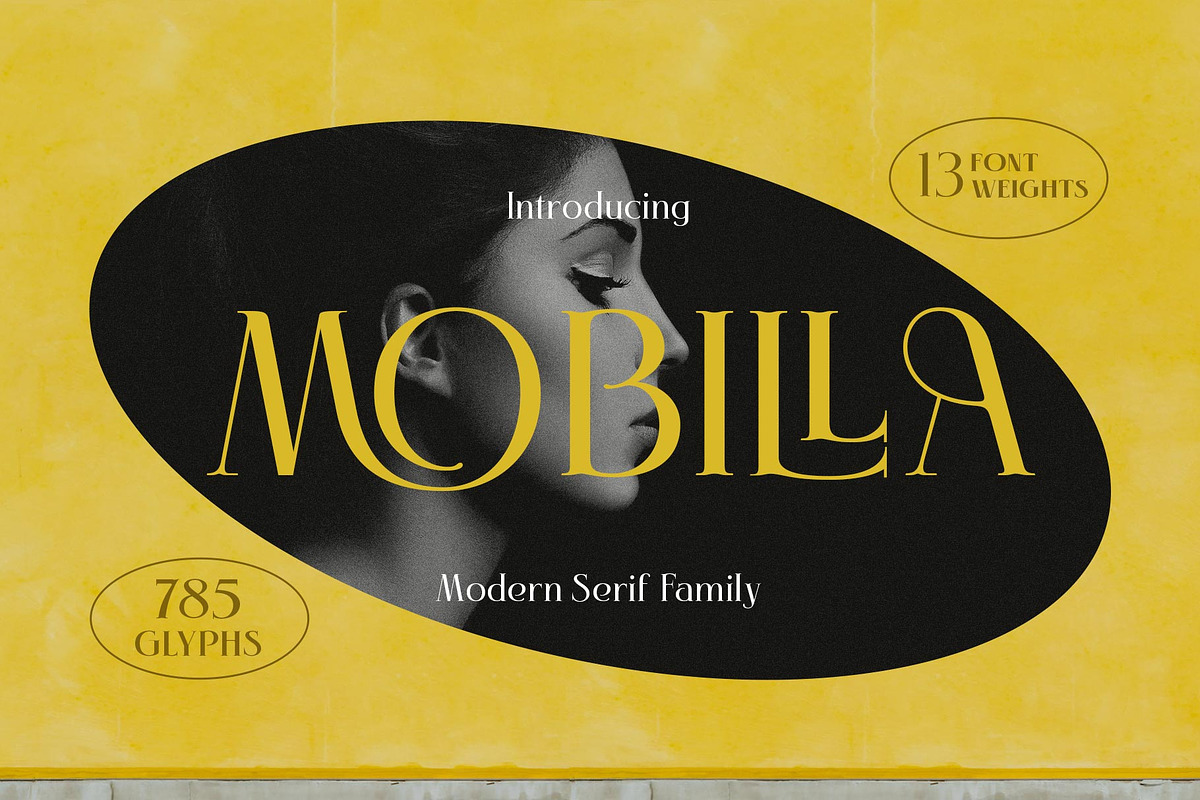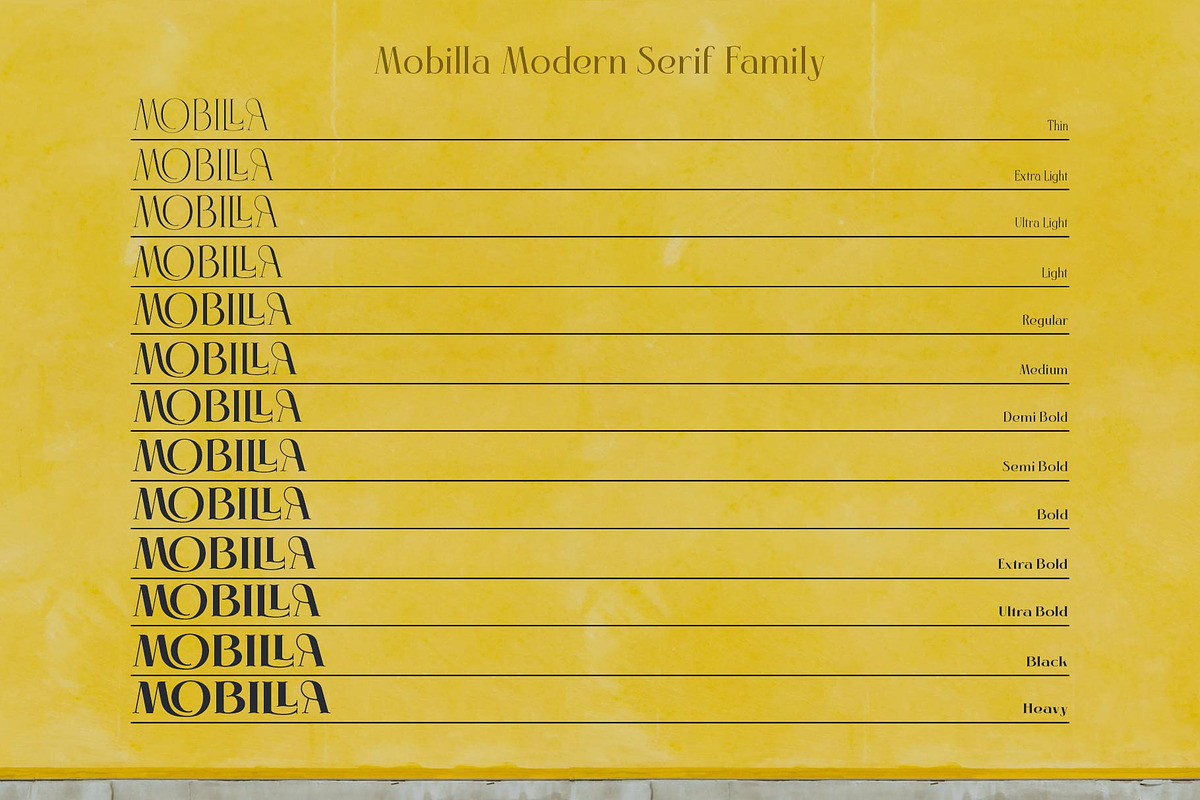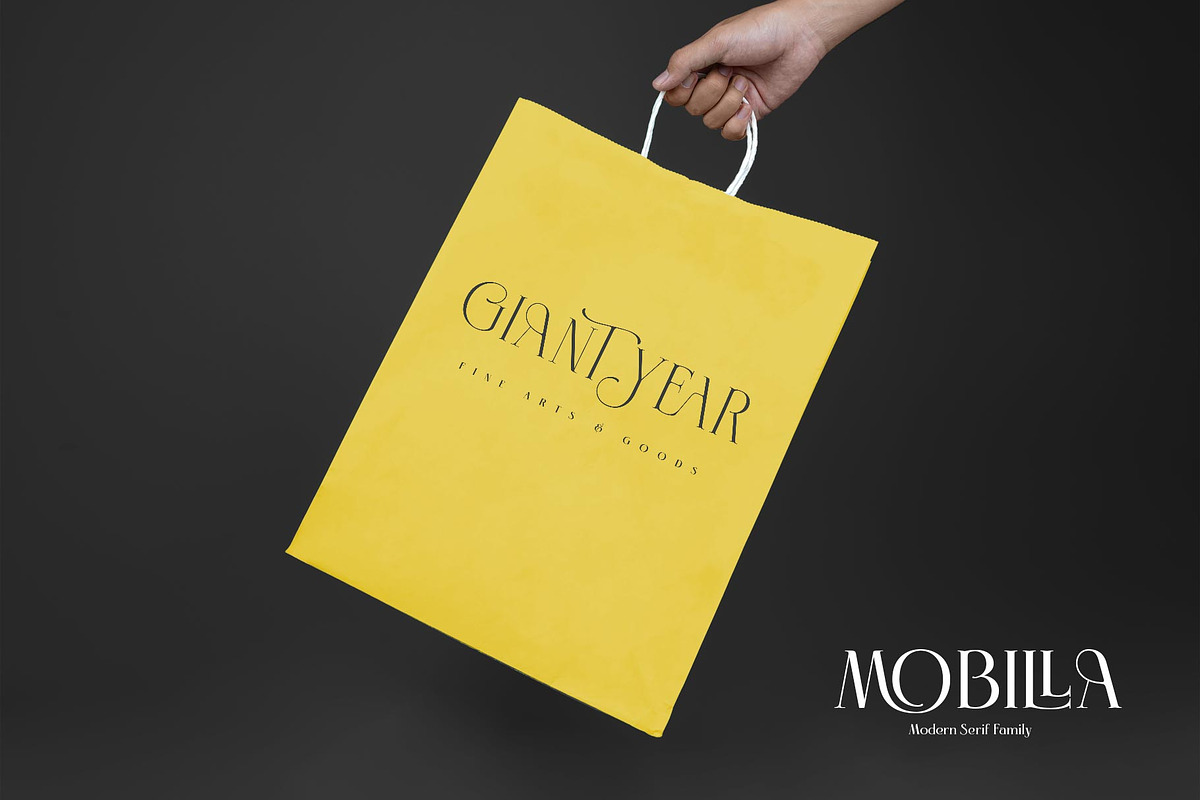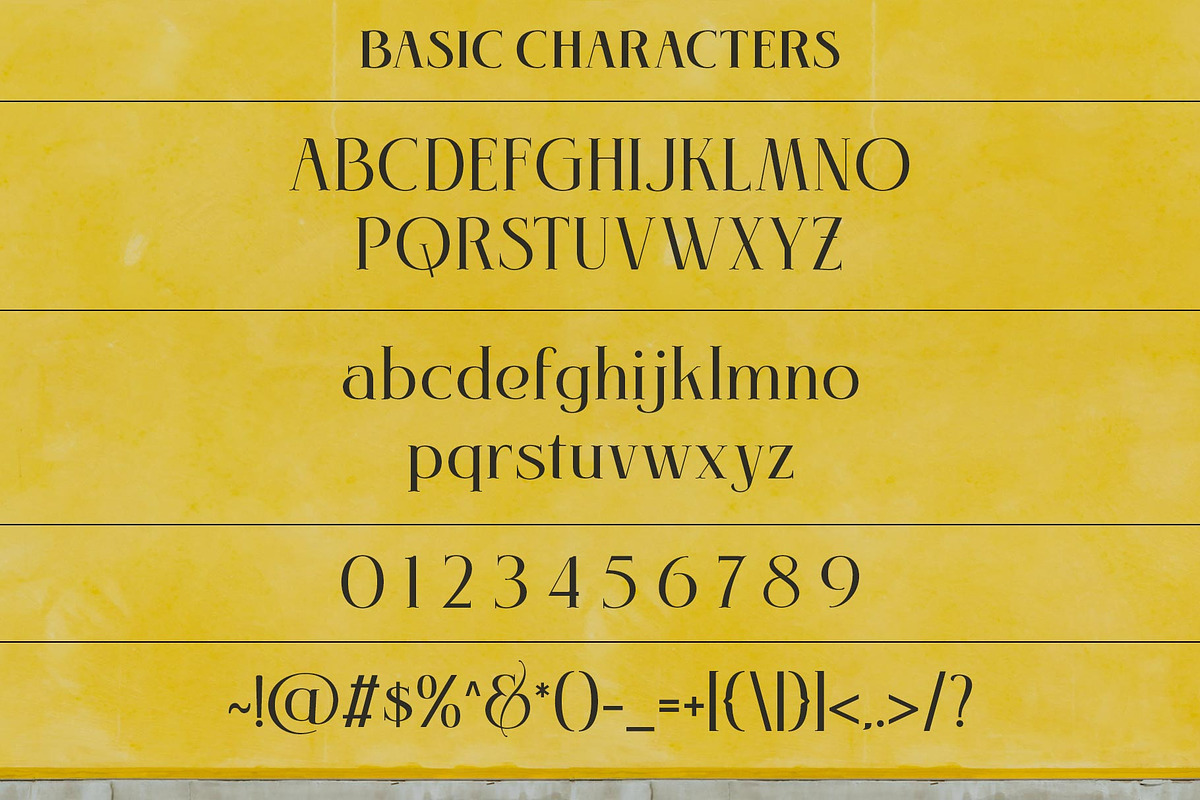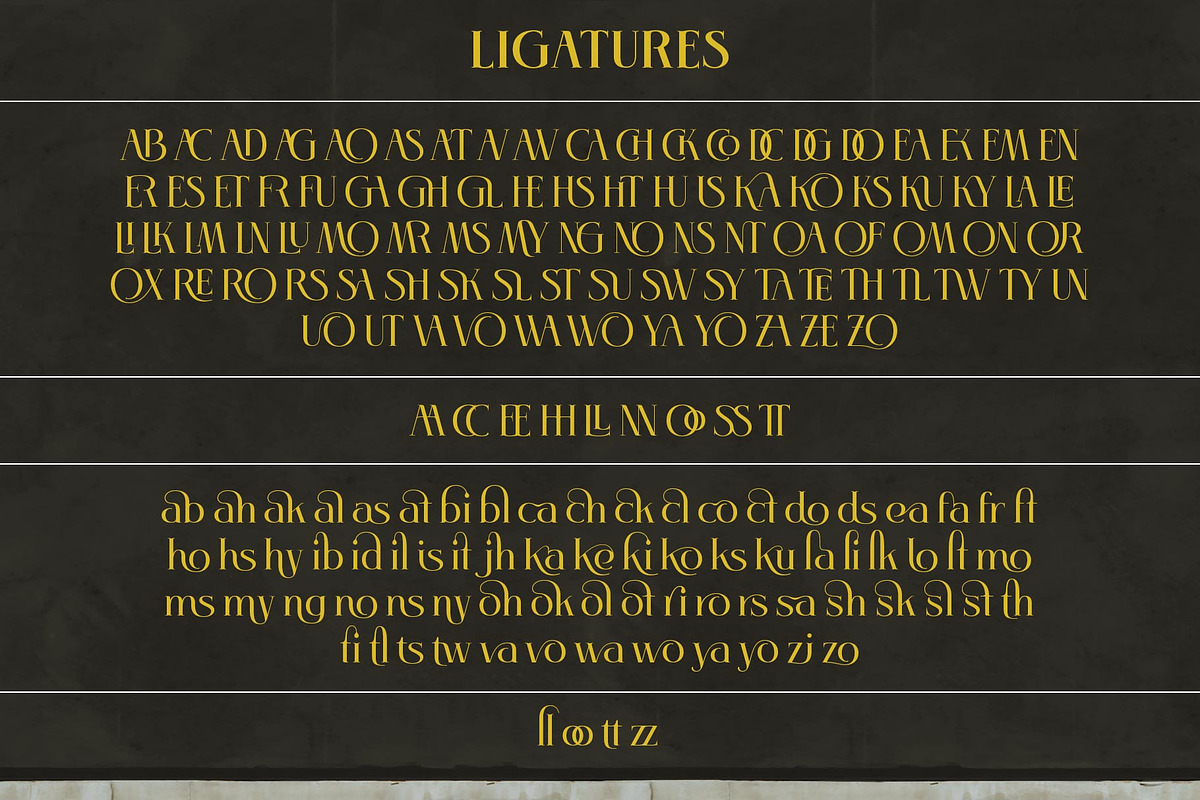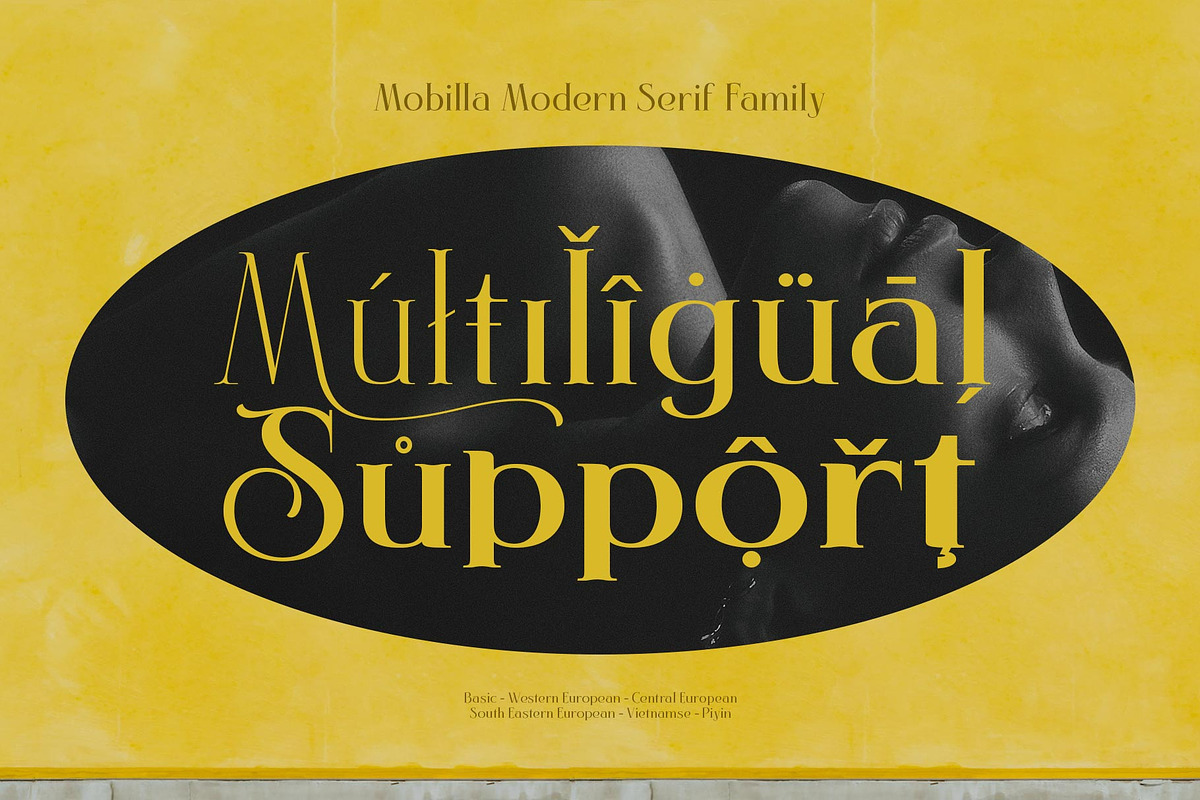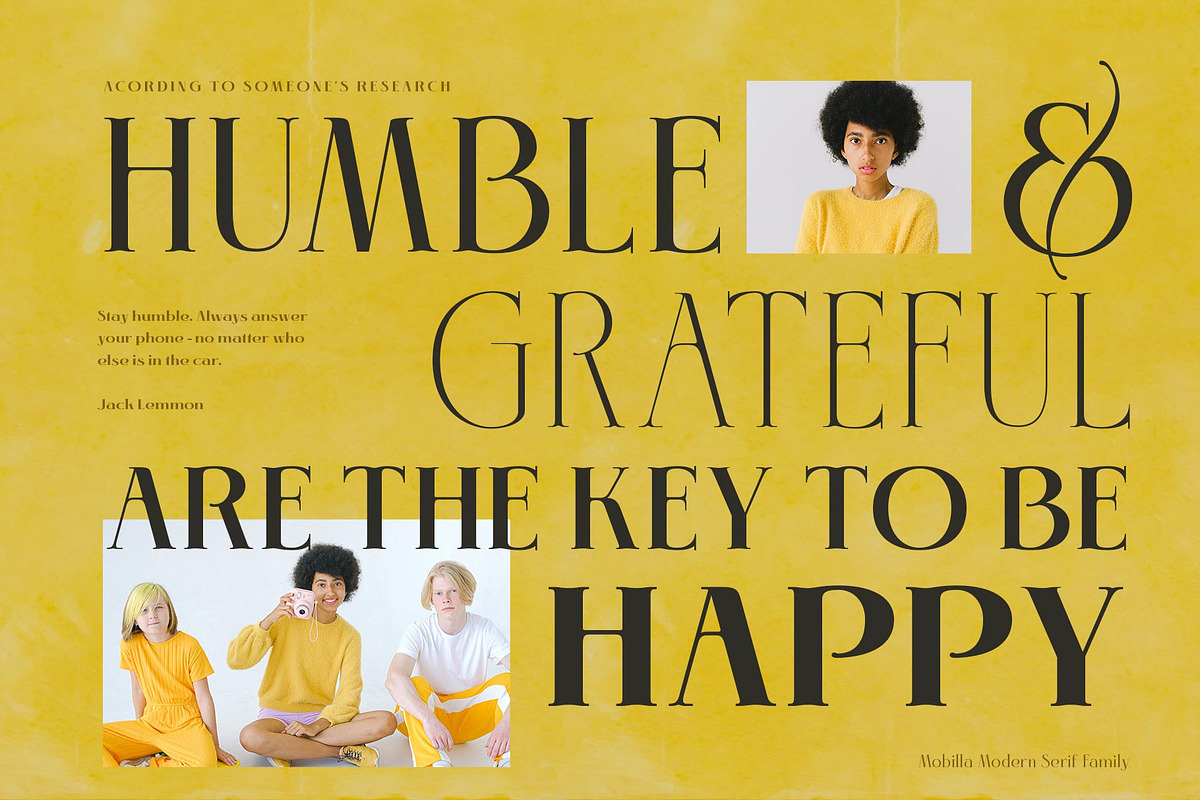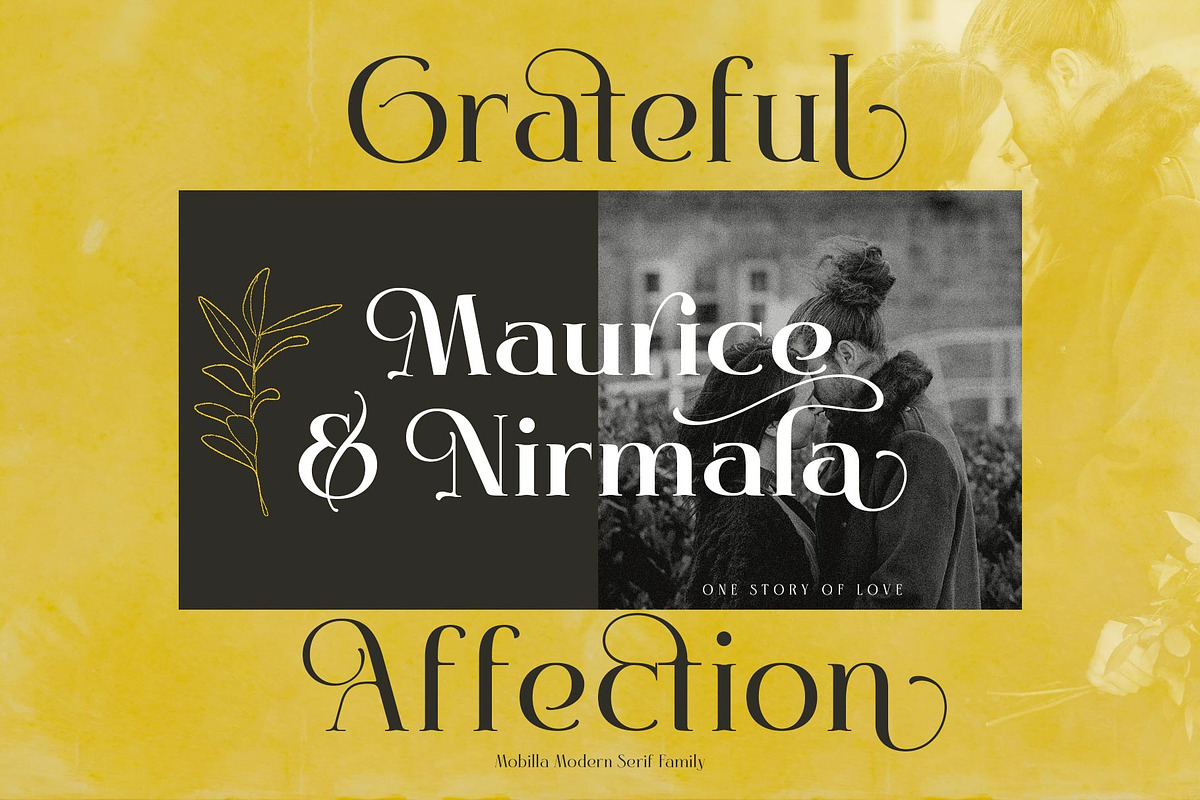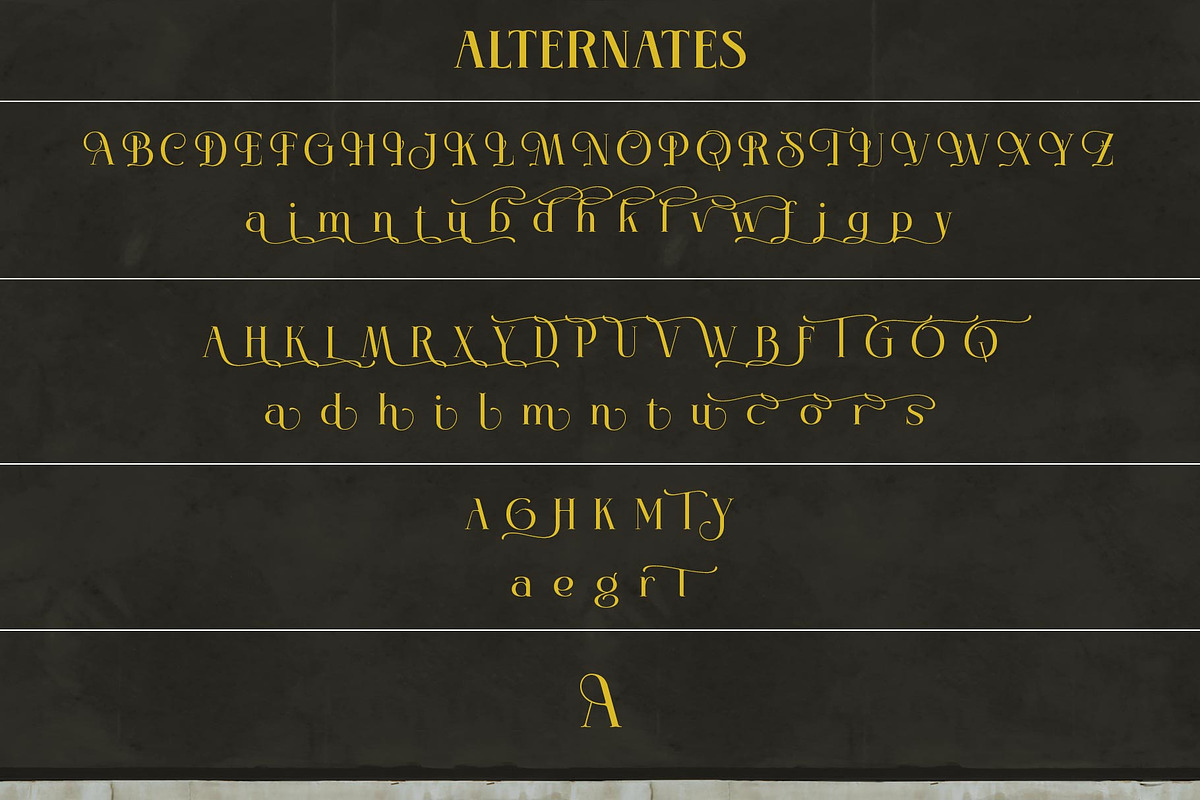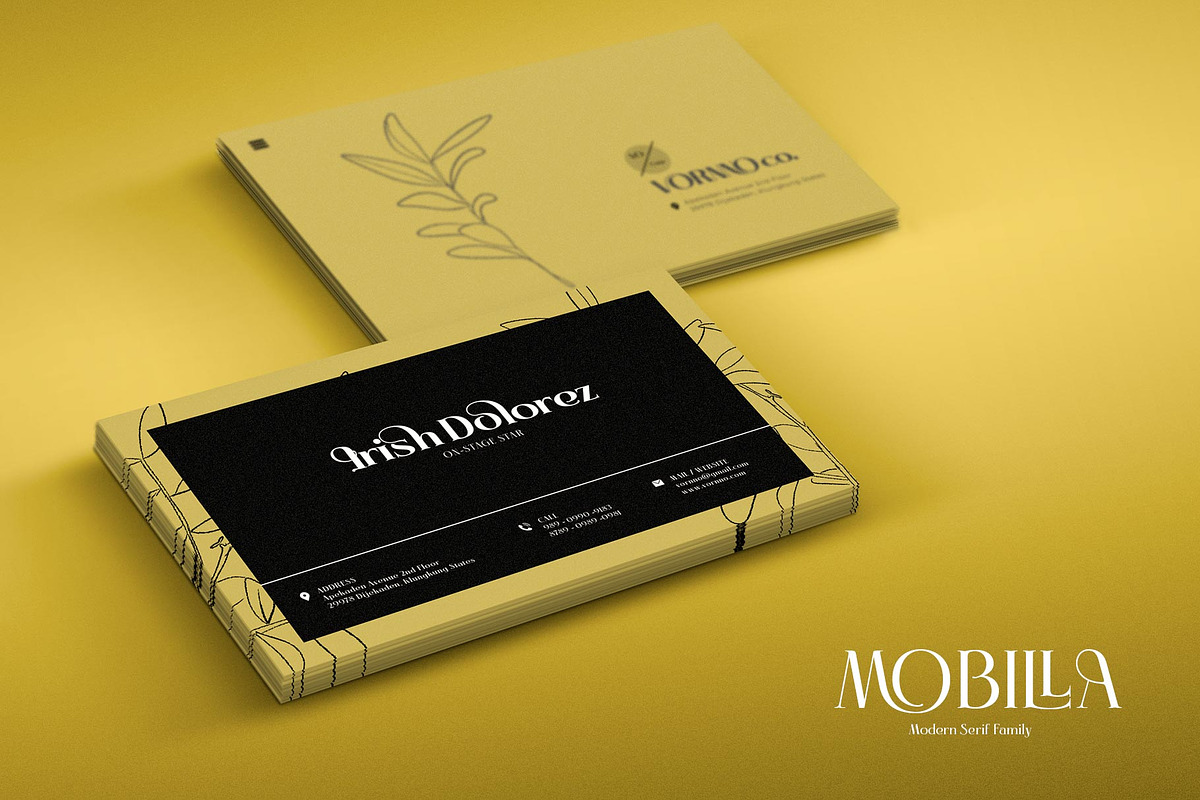
Mobilla Serif Elegant
Introducing Mobilla Serif Elegant typeface
The Mobilla Serif typeface is an elegantly themed font that has a dynamic serif style. The details of the shape of the "Mobilla Serif Elegant typeface" are very smooth and flow to create unique and beautiful curves. Elegant Serif typefaces such as “Mobilla Serif Elegant typeface” are very easy to apply to any design, especially those with an elegant and smooth concept, besides that this font is very easy to use both in design and non-design programs because everything changes and glyphs are supported by Unicode (PUA).
The Mobilla Serif Elegant typeface contains 785 glyphs with many unique and interesting alternative options. Plus, there's a cool serif font family for header and description text from Thin to Heavy. In the poster preview all the letters are in the Mobilla Serif Elegant typeface.